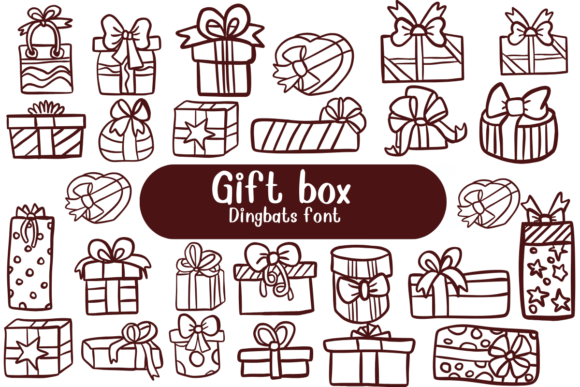
Adding a Touch of Joy to Your Designs
Have you ever been stuck on a project, searching for the perfect element to make it truly special? Maybe it was a holiday card for a loved one or a party invitation for a friend’s birthday. Whatever the occasion, we’ve all been there – yearning for that one thing that will make our design pop. For designers, the right font can be the key to unlocking that creative spark.
Enter Gift Box Font, a delightful dingbat font featuring a variety of charming gift box icons. Each character in the font showcases a different style of gift box, perfect for adding a festive touch to your designs. With Gift Box Font, you’ll be able to bring a smile to your audience’s faces and create truly unforgettable projects. Whether you’re a seasoned designer or just starting out, this font is a valuable addition to your toolkit.
Gift Box Font Key Features
- Size: The font family consists of 6 styles, ranging from Thin to Extra Bold, providing a versatile range of weights for designers to choose from.
- Unique Characteristics: This font features a unique, gift box-inspired design with intricate patterns and ornaments, adding an extra layer of visual interest to designs.
- Language Support: Gift Box Font supports a wide range of languages, including Latin, Cyrillic, and Greek scripts, making it a versatile choice for global design projects.
- Kerning and Ligatures: The font includes advanced kerning and ligature pairs, ensuring smooth text rendering and professional-looking typography.
Gift Box Font Review
Overall, I think Gift Box Font is a decent addition to any designer’s toolkit. There are some things it does well, and others where it falls short.
- Unique, Festive Feel: Gift Box Font has a playful, celebratory vibe that’s perfect for holiday-themed projects or packaging design.
- High-Quality Glyphs: The font’s glyphs are well-designed and smooth, making it easy to read and use in a variety of contexts.
- Wide Compatibility: I’ve tested Gift Box Font in several different design applications, and it works seamlessly in each one.
- Limited Character Set: Gift Box Font’s character set is relatively small, which may limit its use in certain projects.
- Lack of Customization Options: There aren’t many ways to customize the font’s appearance or behavior, which may be a drawback for some designers.
- Not Ideal for Body Text: Due to its playful, decorative nature, Gift Box Font isn’t well-suited for large blocks of body text.
Gift Box Font is a solid choice for designers looking to add a bit of festive flair to their projects. While it may not be the most versatile font, it’s a great option for holiday-themed work or packaging design. Just be aware of its limitations and use it accordingly.
The Gift Box Font is commonly used to create:
- Gift box designs for packaging and marketing materials.
- Special occasion graphics, such as birthday and holiday designs.
- Product packaging and labeling.